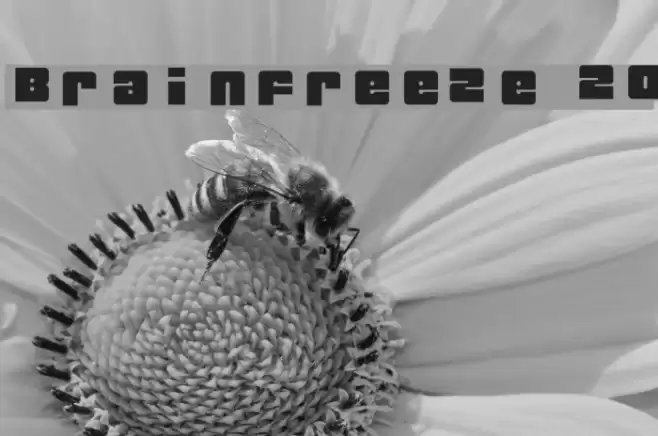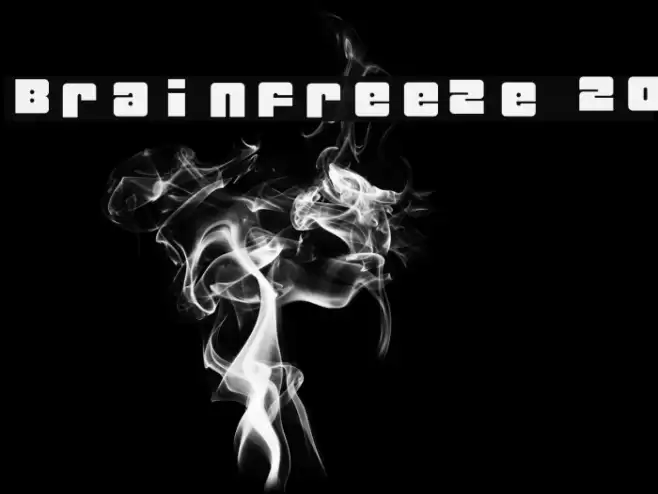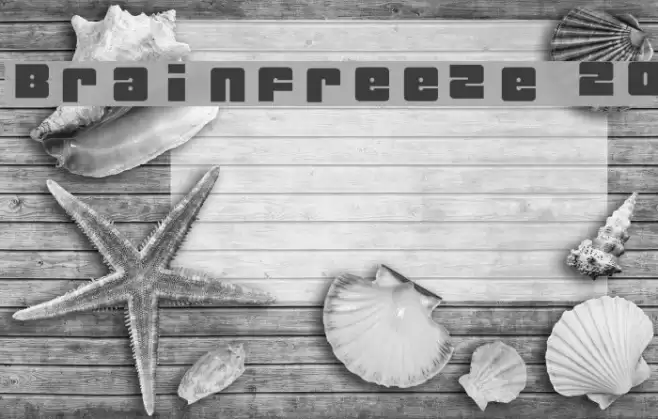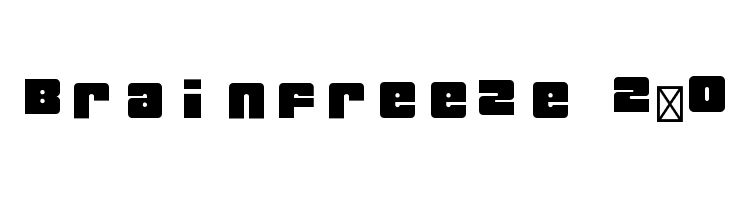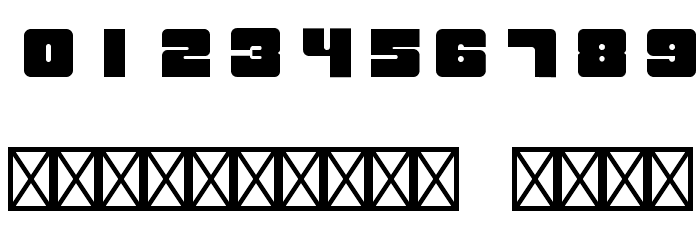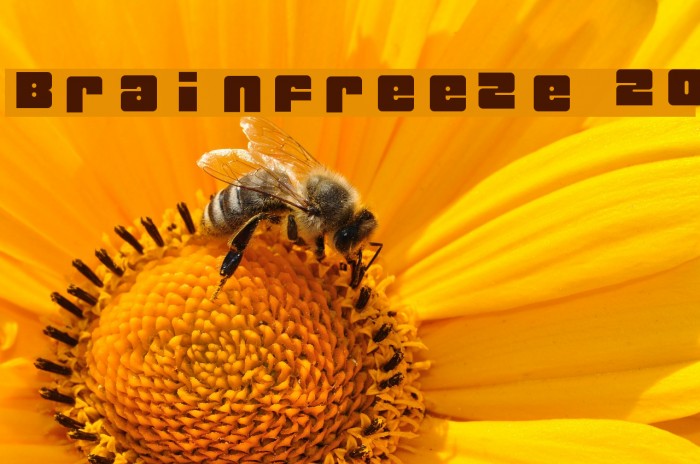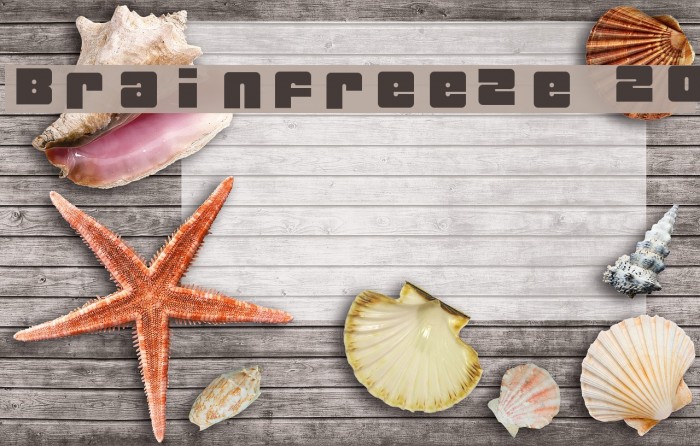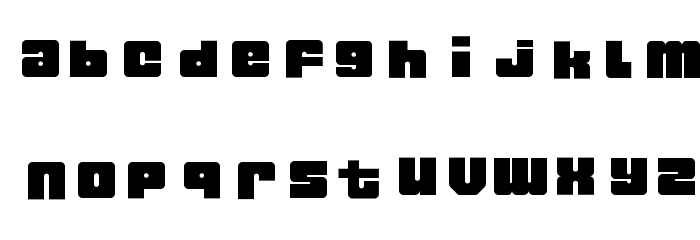
Brainfreeze 2.0 Font
Brainfreeze 2.0 Description
This font features a bold, geometric style with a strong presence. The characters are blocky and robust, with a uniform thickness that gives them a solid, impactful look. The uppercase and lowercase letters maintain a consistent design, emphasizing straight lines and sharp angles. Numbers and special characters follow the same bold, structured aesthetic, making them easily legible and visually striking. The overall design is modern and assertive, suitable for creating attention-grabbing headlines or logos.
A bold, geometric font with a strong, modern presence from Uncategorized fonts.